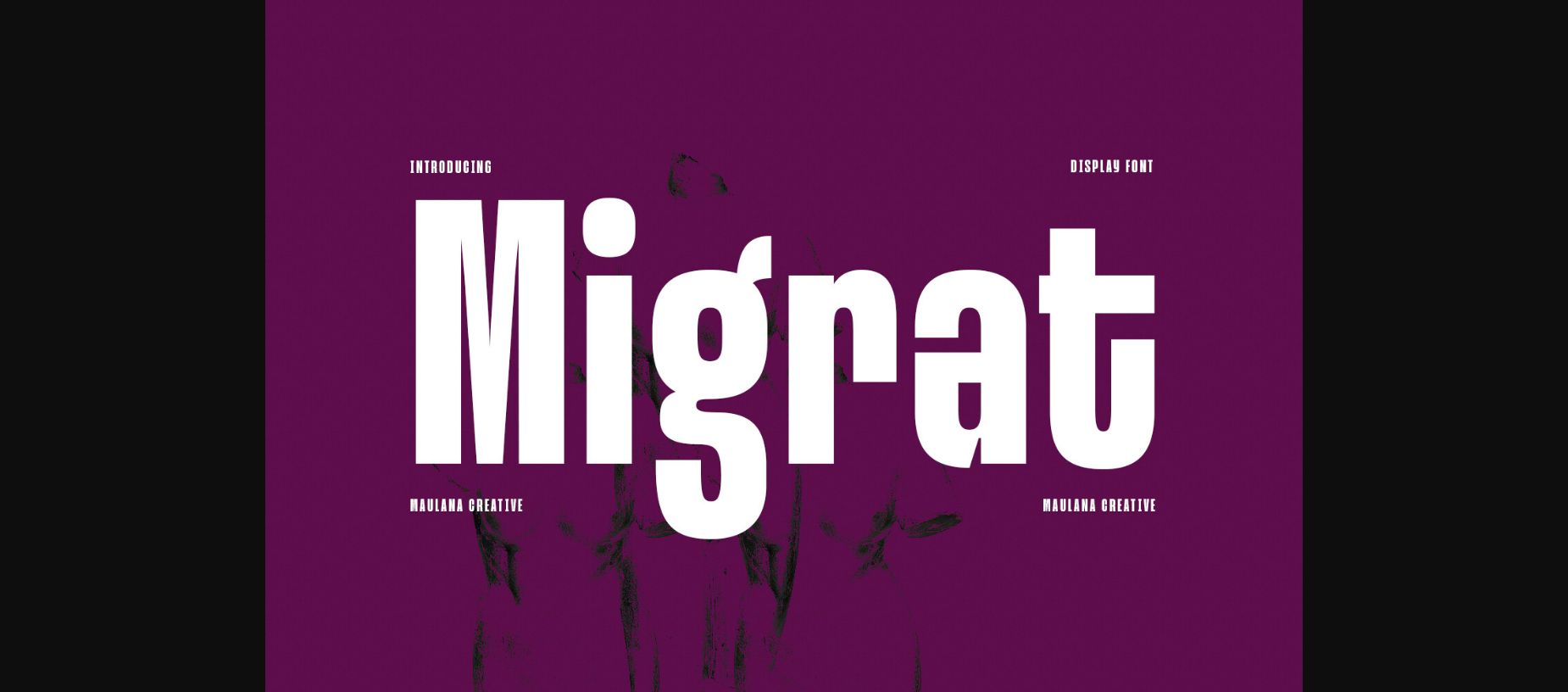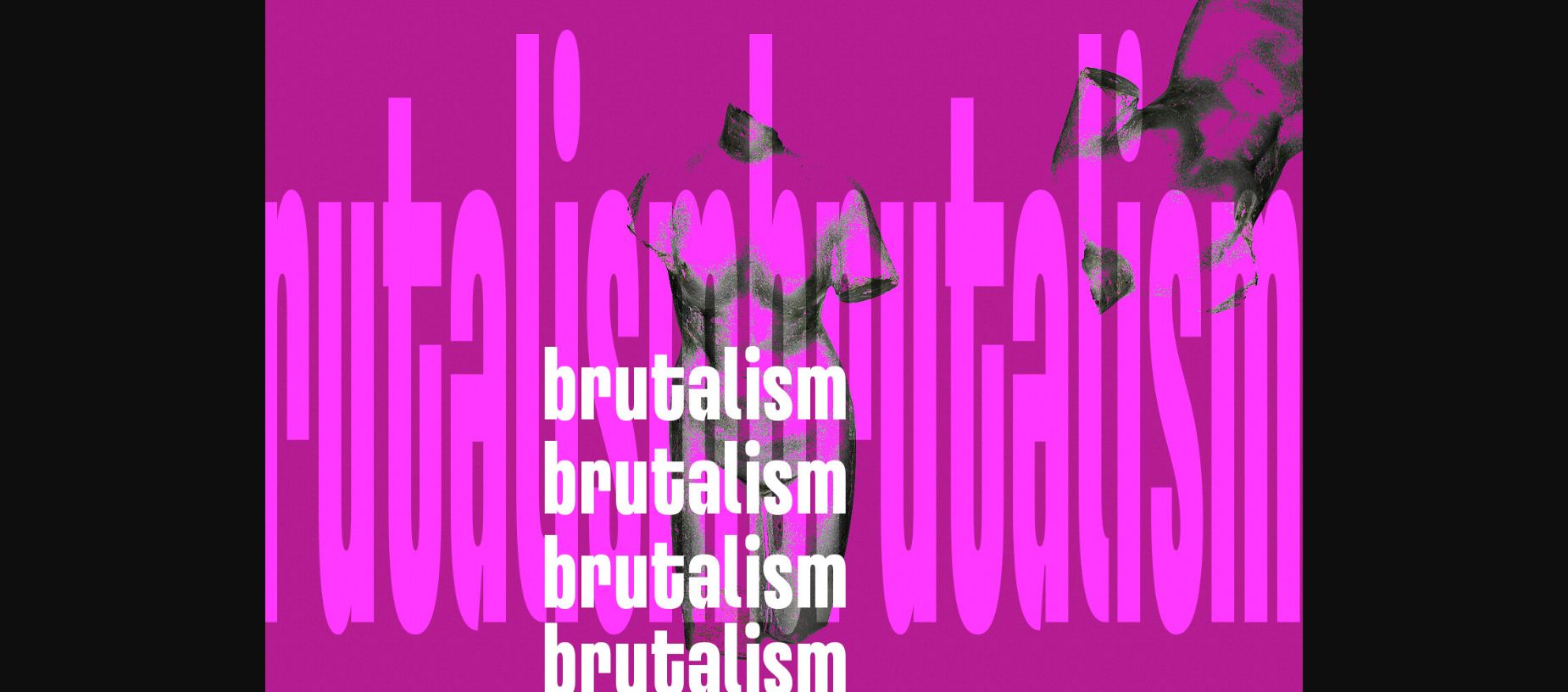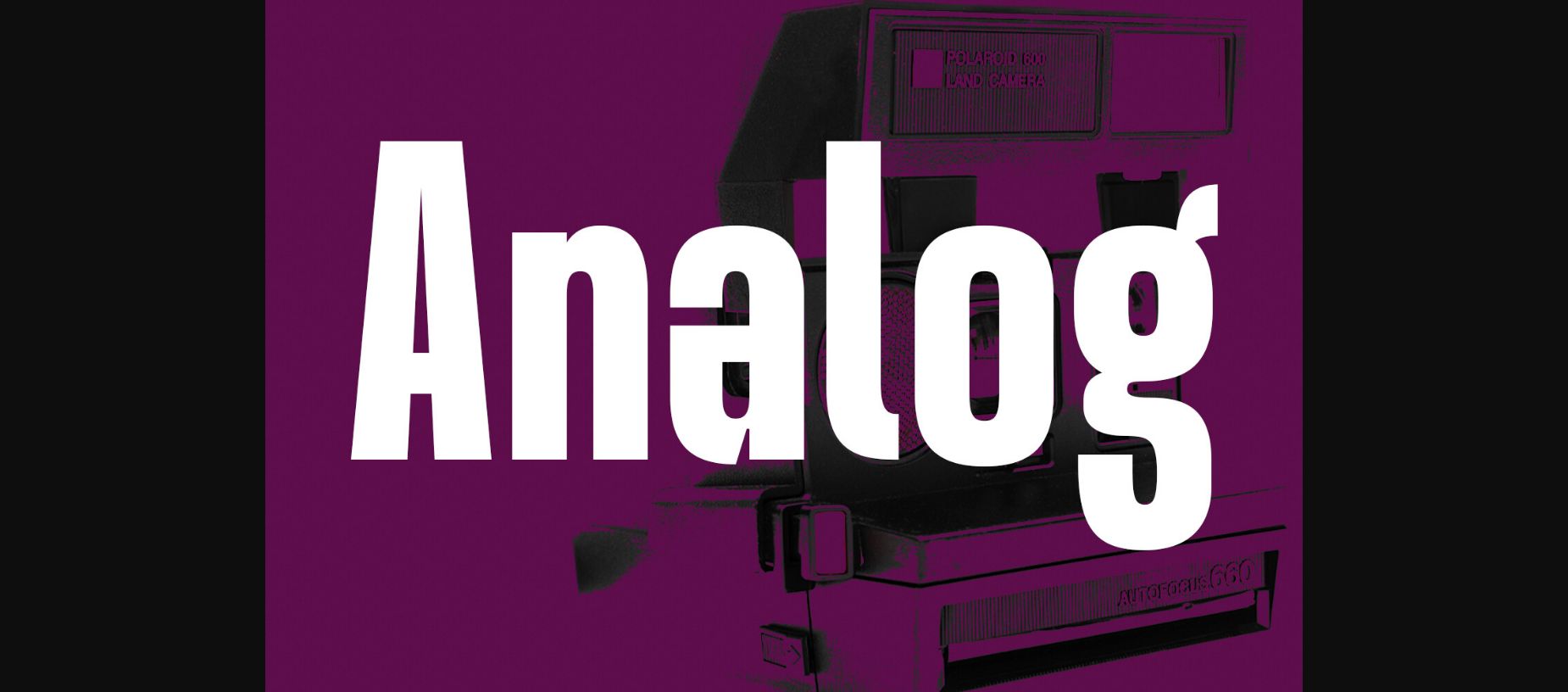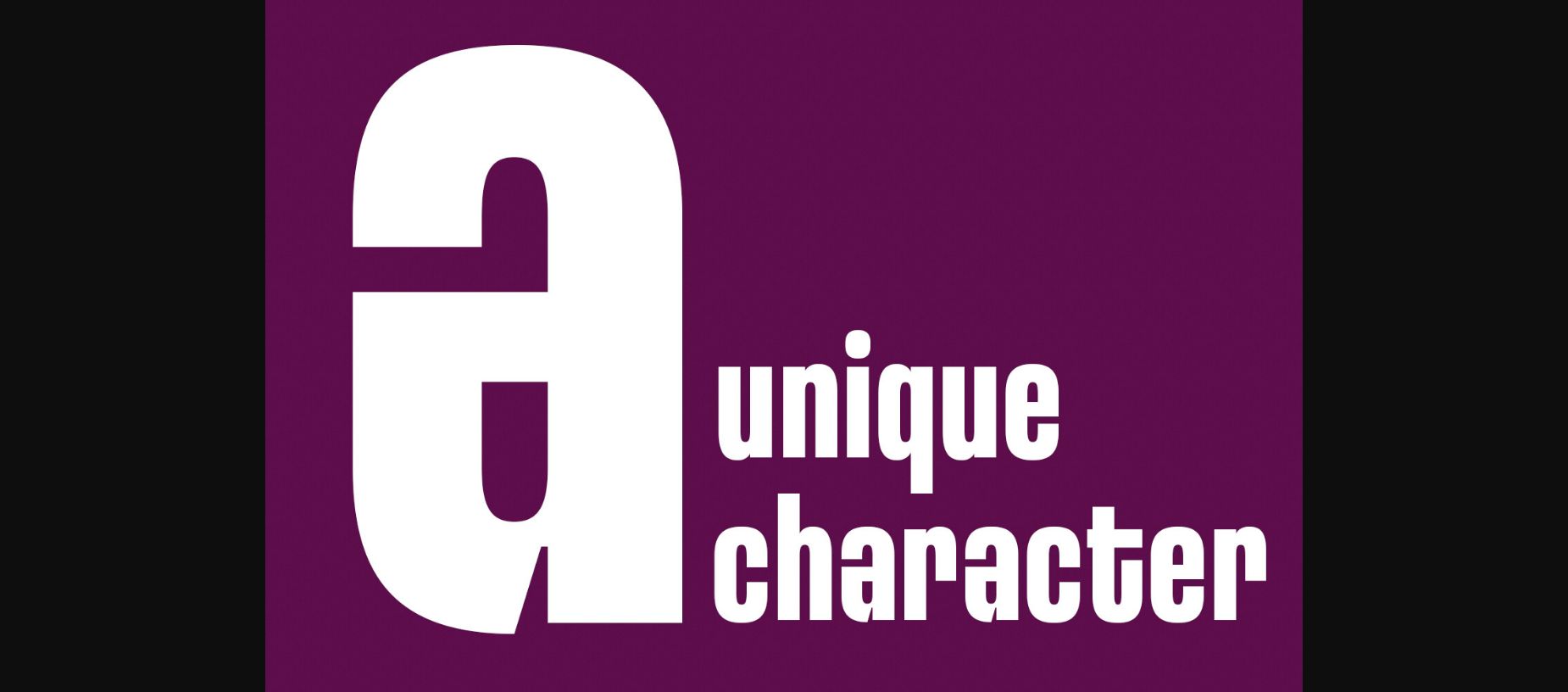
About Migrat Font
Migrat is a unique modern compressed sans display font. Bold stroke, fun character with a bit of ligatures and stylistic. To give you an extra creative work. Migrat font support multilingual more than 100+ language. This font is good for logo design, Social media, Movie Titles, Books Titles, a short text even a long text letter and good for your secondary text font with script or serif. Make a stunning work with Migrat font.